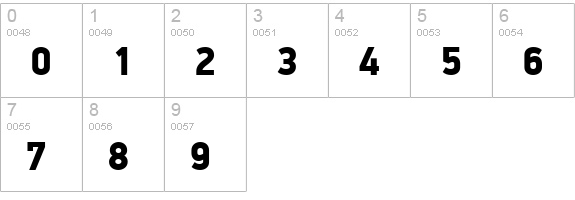
PFDinDisplayPro-Black is a maximum-weight, dramatic variant in the PFDinDisplayPro typeface family \xE2\x80\x94 well suited to maximum-impact headlines, posters, and packaging.
PFDinDisplayPro-Black is a sleek and modern sans-serif font that commands attention with its bold and impactful presence. Its thick strokes and sharp angles give it a strong and confident appearance, making it perfect for headlines, titles, and other display purposes. This font exudes professionalism and sophistication, making it ideal for design projects that require a touch of elegance and boldness. The best part? PFDinDisplayPro-Black is available for free download at FontsMarket.com. This means that you can easily access this high-quality font without any cost, allowing you to elevate your designs without breaking the bank. Whether you're working on a branding project, a poster design, or any other creative endeavor, PFDinDisplayPro-Black will surely make a statement and leave a lasting impression. Download it today and add a touch of bold sophistication to your next project.